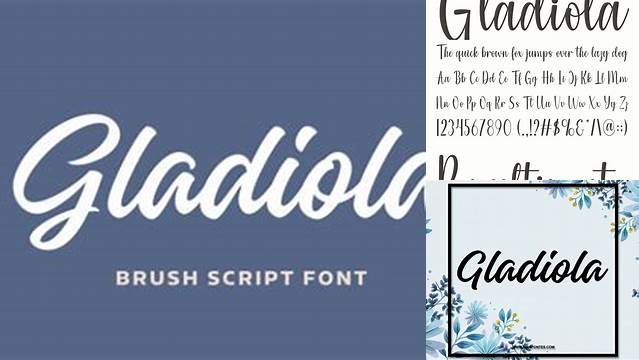
Understanding the Gladiola Font: A Design Essential
The Gladiola font is a popular choice among designers and creators looking for a unique and stylish typeface. Its elegant curves and distinctive character make it stand out, offering a touch of sophistication to any project. Whether you're working on a personal blog, a professional presentation, or social media graphics, the Gladiola font can elevate your visual communication. Many users are actively searching for ways to incorporate this font into their design workflows, especially within popular platforms like Canva. This guide will delve into the specifics of finding and utilizing the Gladiola font, focusing on how you can access it for free and leverage its aesthetic qualities to create compelling designs. We'll cover everything from understanding its licensing to practical tips for applying it effectively in your Canva projects, ensuring you get the most out of this versatile typeface. So, if you're keen on adding a touch of refined charm to your creations, understanding the Gladiola font is your first step towards achieving that goal. Let's explore what makes this font so special and how you can seamlessly integrate it into your design toolkit. The appeal of the Gladiola font lies in its ability to convey a sense of grace and fluidity, making it suitable for a wide array of applications that require a distinctive yet approachable feel. Its design often features slightly playful yet refined elements, setting it apart from more conventional serif or sans-serif fonts. This makes it particularly effective for branding, wedding invitations, and other projects where a memorable and elegant touch is desired. The search for a specific font like Gladiola often stems from a desire to achieve a particular mood or aesthetic. Designers might have seen it used in a magazine, on a website, or in a marketing campaign and been drawn to its unique personality. The ease with which it can be found and downloaded for free, particularly through platforms like Canva, further enhances its appeal. This accessibility democratizes design, allowing individuals and small businesses to achieve professional-looking results without significant investment in typography. We'll ensure you're equipped with the knowledge to navigate the process smoothly.
Why Choose the Gladiola Font for Your Designs?
The Gladiola font offers a unique blend of classic elegance and modern flair, making it a standout choice for a variety of design projects. Its distinctive letterforms, characterized by smooth, flowing strokes and subtle flourishes, can add a touch of sophistication and personality that generic fonts simply can't match. If you're aiming to create designs that are both memorable and visually appealing, the Gladiola font is definitely worth considering. It's particularly effective for projects that require a sense of warmth, creativity, and a personal touch. Think wedding invitations, greeting cards, branding for artisanal products, or even stylish social media posts. The font's readability is also a key factor; while it possesses a unique style, the designers have ensured that it remains legible across different sizes and applications. This balance between stylistic flair and functional clarity is crucial for effective communication. Furthermore, the versatility of the Gladiola font allows it to pair well with other typefaces. You can use it as a prominent headline font to capture attention, and then pair it with a simpler, more neutral font for body text to ensure readability. This contrast can create a dynamic and engaging visual hierarchy in your designs. When you're looking to make a statement and differentiate your brand or message from the crowd, choosing a distinctive font like Gladiola is a smart move. It signals attention to detail and a commitment to aesthetic quality, which can significantly enhance the perception of your work. The tactile quality that some fonts evoke is present in Gladiola, making your text feel almost tangible and approachable. Many users discover the Gladiola font through inspiration from other designers or brands, seeking to replicate a certain aesthetic. Its availability for free download on platforms like Canva further democratizes its use, allowing a wider audience to access high-quality typography without cost barriers. This makes it an invaluable asset for students, small businesses, and freelance creatives who need professional-looking results on a budget. The sheer aesthetic appeal and the positive emotional response it can evoke are strong reasons why designers gravitate towards it. It's not just about filling space with letters; it's about conveying a feeling and personality through typography, and Gladiola does this exceptionally well.
Creative Ways to Use Gladiola Font Beyond Headlines
While the Gladiola font is undeniably striking and perfect for headlines, its versatility extends far beyond just grabbing attention at the top of your design. Think of it as a stylistic tool you can deploy in numerous creative ways within Canva to add unique flair to various elements. For instance, consider using the Gladiola font for creating eye-catching quote graphics for social media. A well-chosen quote, rendered in the elegant curves of Gladiola, can become a shareable piece of art. You can also incorporate it into logo designs, especially for brands that want to convey a sense of sophistication, artistry, or a personal touch. Its unique character can make a logo memorable and distinct. Invitations and greeting cards are another prime area. Whether it's a wedding invitation, a birthday card, or a thank-you note, using Gladiola for names, key phrases, or even the entire greeting can lend an air of special occasion and thoughtful design. Imagine the names of the bride and groom beautifully rendered in Gladiola on their wedding invitation. For branding projects, consider using Gladiola for subheadings, call-to-action buttons, or even as a stylistic accent on packaging or business cards. It can add a sophisticated contrast when paired with a simpler body font. Even in presentations, you could use Gladiola for slide titles or key takeaways to add visual interest, ensuring it's used sparingly enough to maintain professionalism. Don't forget about creating stylish watermarks for your photos or artwork; a subtly placed Gladiola watermark can add a professional signature. You can also experiment with using the font in a typographic art piece or a decorative pattern. By manipulating its size, color, and arrangement, you can transform the Gladiola font into a visual element that stands on its own. The key is to experiment and not be afraid to push the boundaries. Remember to consider the overall context of your design and ensure that the use of Gladiola complements rather than competes with other elements. By exploring these varied applications, you can truly harness the full potential of the Gladiola font, making your Canva creations distinctive and impactful. It’s about using type as a design element, not just text.